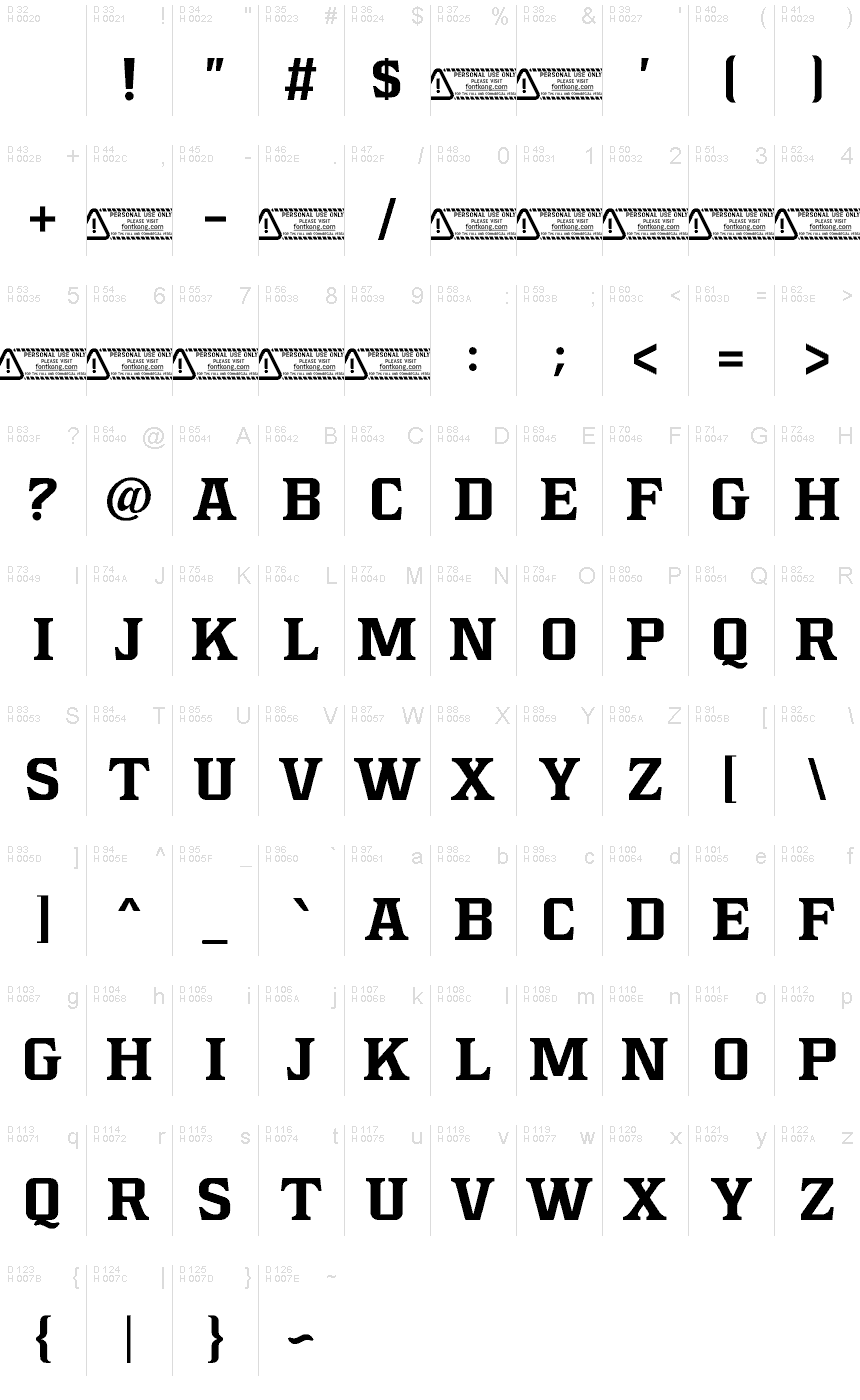
Hogers font by Kong Font is a free serif font with a bold, sturdy presence. Its block-like appearance exudes stability with traditional influences leading its design. The characters stand strong and clear supporting the viewers’ understanding of each letter or word.